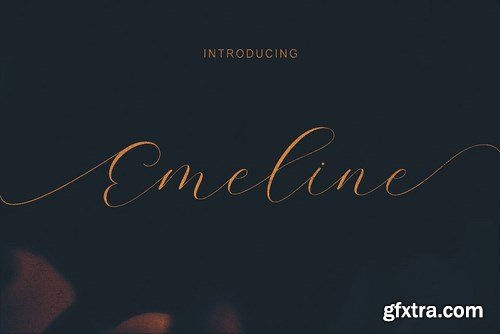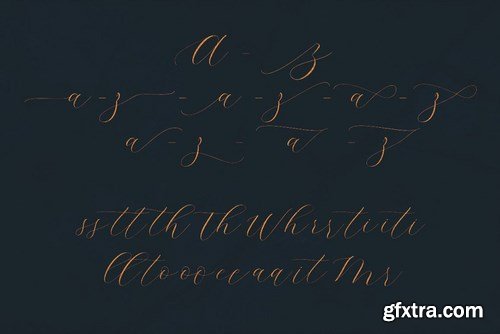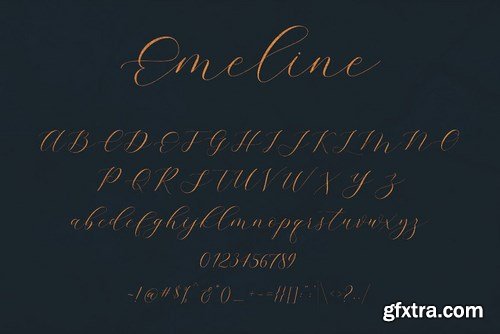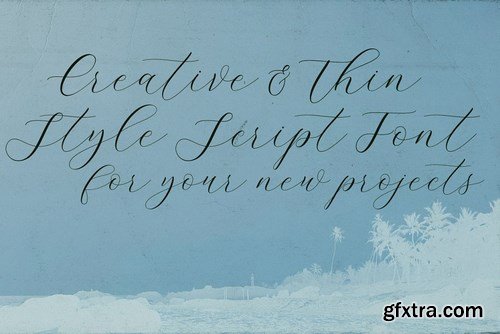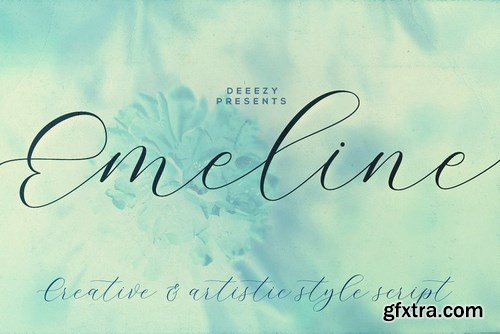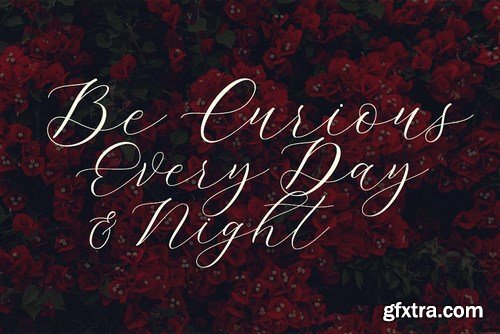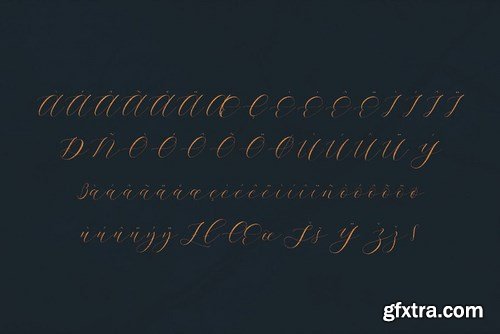
CM - Emeline Script Font 4449875
Thin line and handwritten or creative style script font for your new projects. With multi language support and lot of stylistic alternates. Enjoy ;)